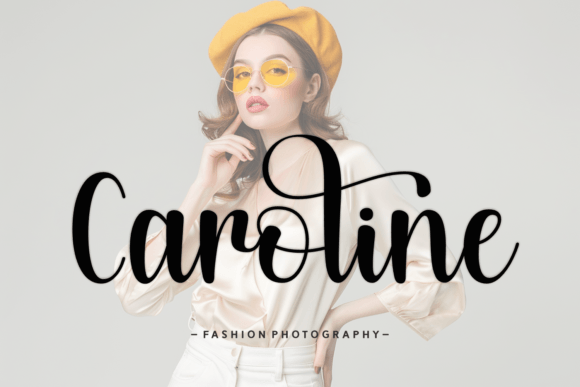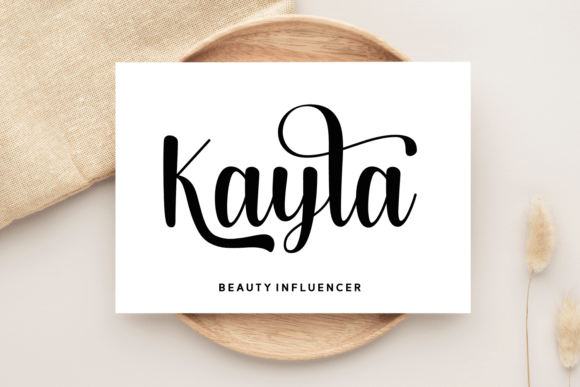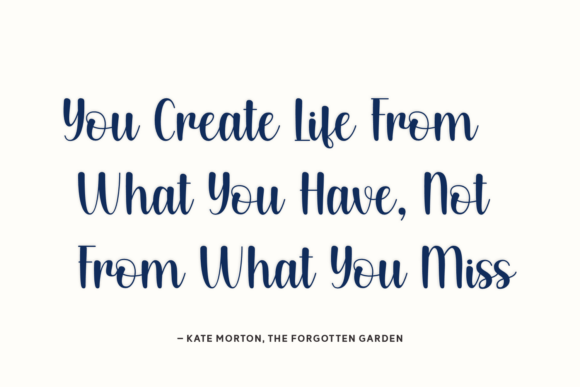
Introduction to Remata Font
Remata is a charming handwritten script font that features smooth, flowing letters.
Its design gives a personal touch, making it perfect for invitations, greeting cards, and any project that needs a warm, friendly feel The font is easy to read and adds a playful yet elegant vibe to your text.
Key Features of Remata Font